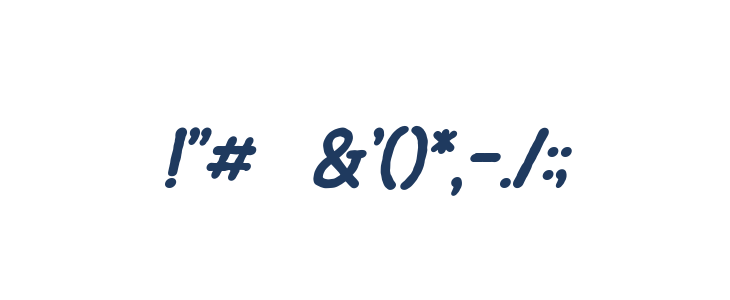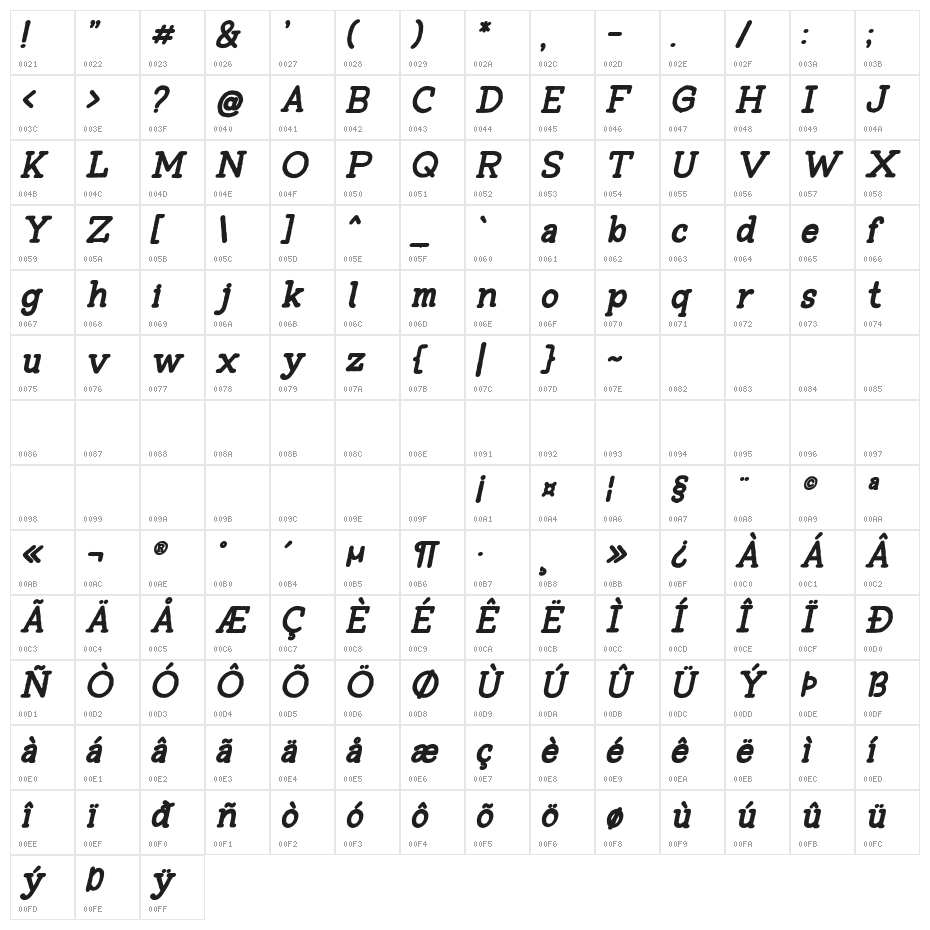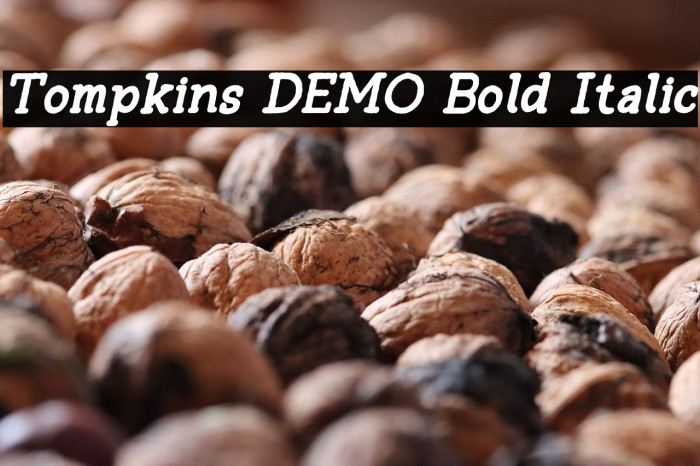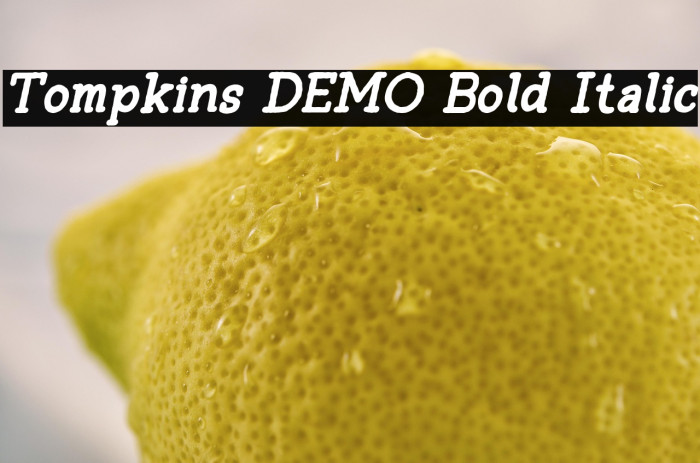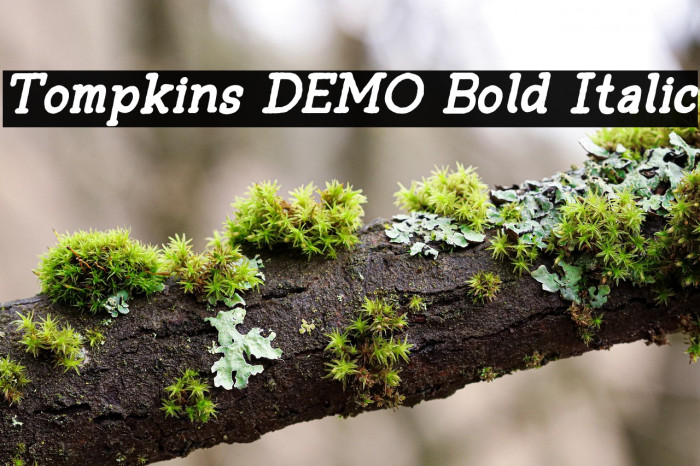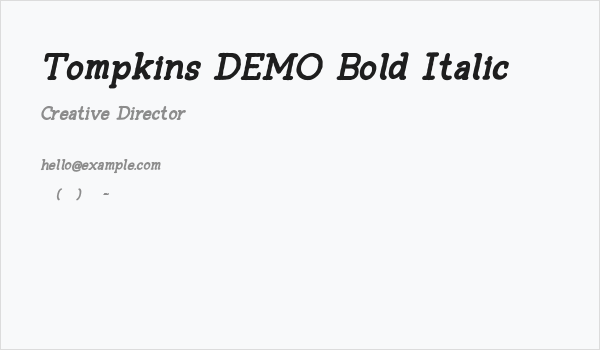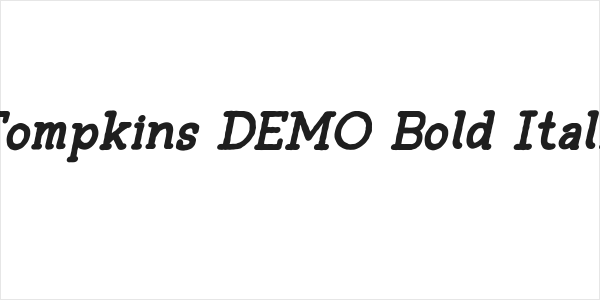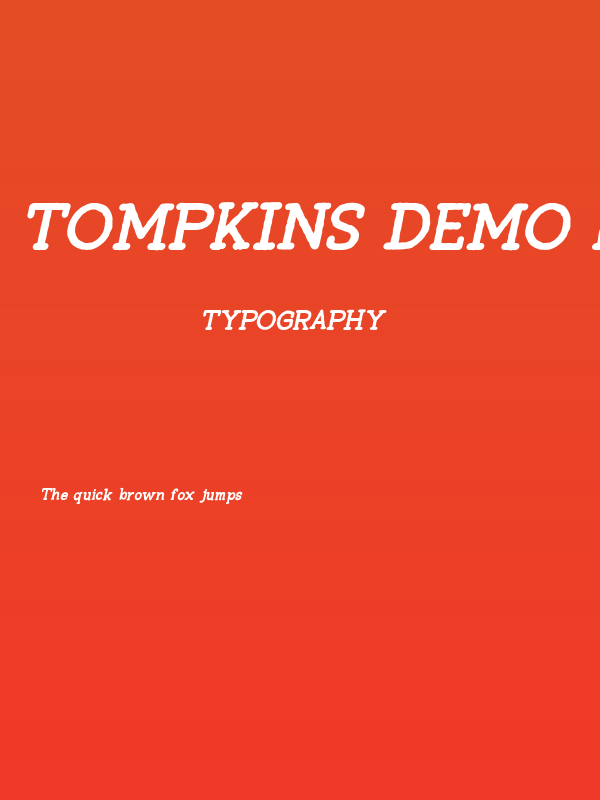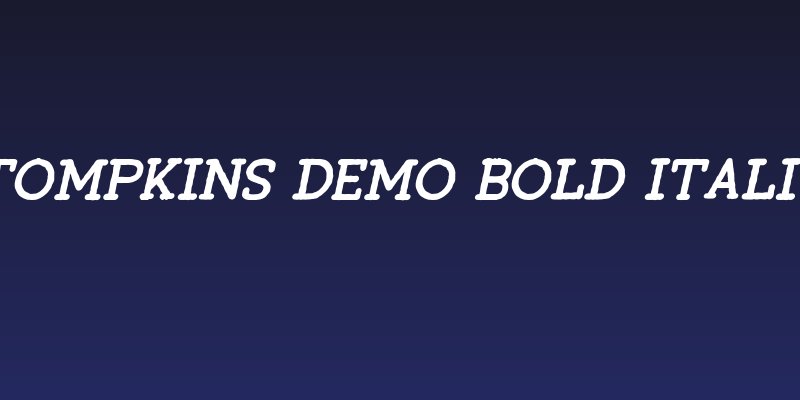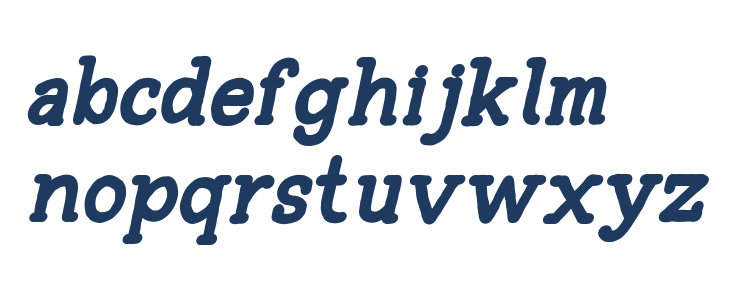
Tompkins DEMO Bold Italic Font
Tompkins DEMO Bold Italic Description
This font features a bold and italic style, combining a strong presence with a dynamic slant. The characters are well-defined with a consistent stroke width, giving it a robust and confident appearance. The italic angle adds a sense of motion and elegance, making it suitable for attention-grabbing headlines. The uppercase letters are slightly larger than the lowercase, maintaining a balanced proportion. The numbers and special characters are designed to match the overall style, ensuring uniformity across all text elements. This font's boldness and italicization make it ideal for projects that require emphasis and style.
| Proposed Projects | Ideal for branding, advertising, headlines, and posters where a bold statement is needed. |